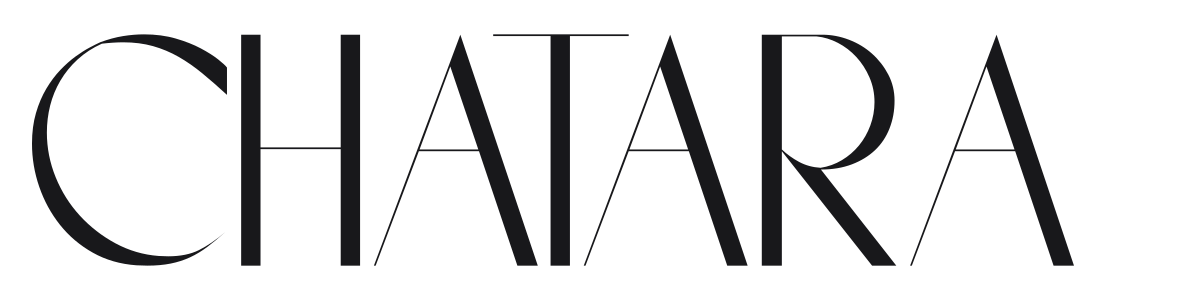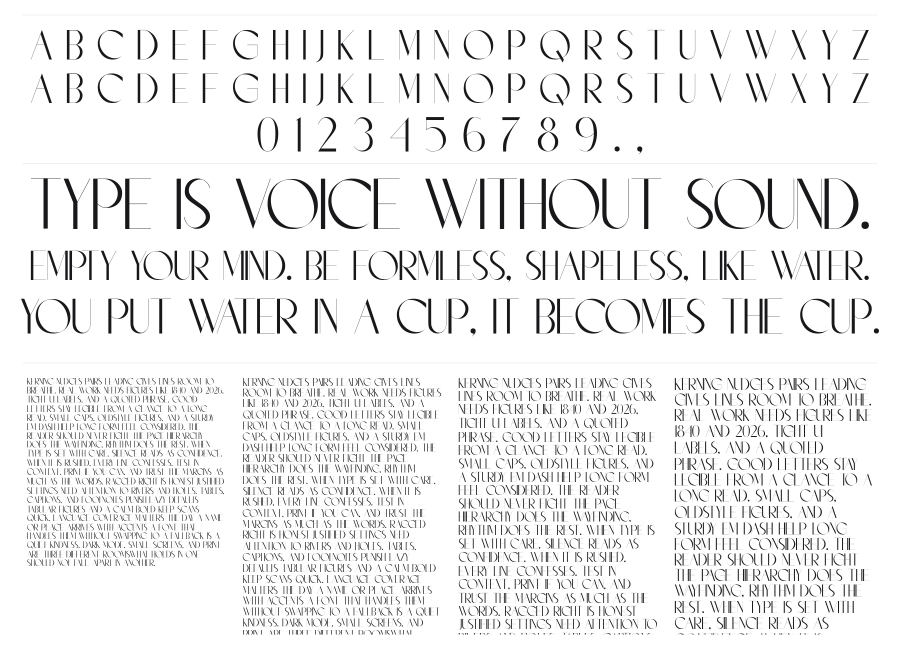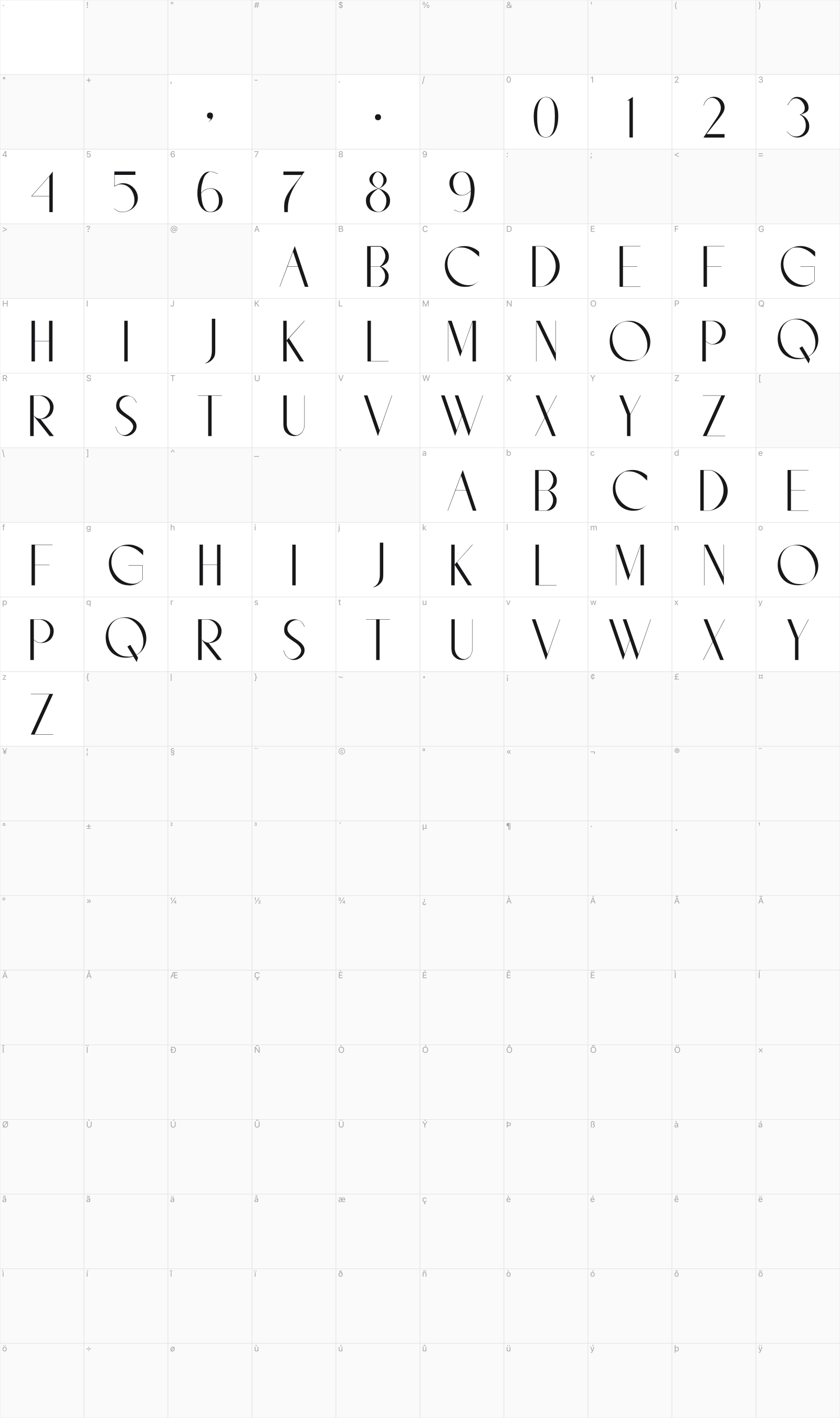
Chatara
Chatara is a high-contrast condensed geometric sans with extreme hairline strokes and dramatic vertical proportions drawn from art-deco fashion typography. The sharp angular cut-ins at stroke junctions give it a couture edge that reads as both classic and contemporary. It thrives at large sizes in editorial layouts, luxury packaging, and brand identity work.